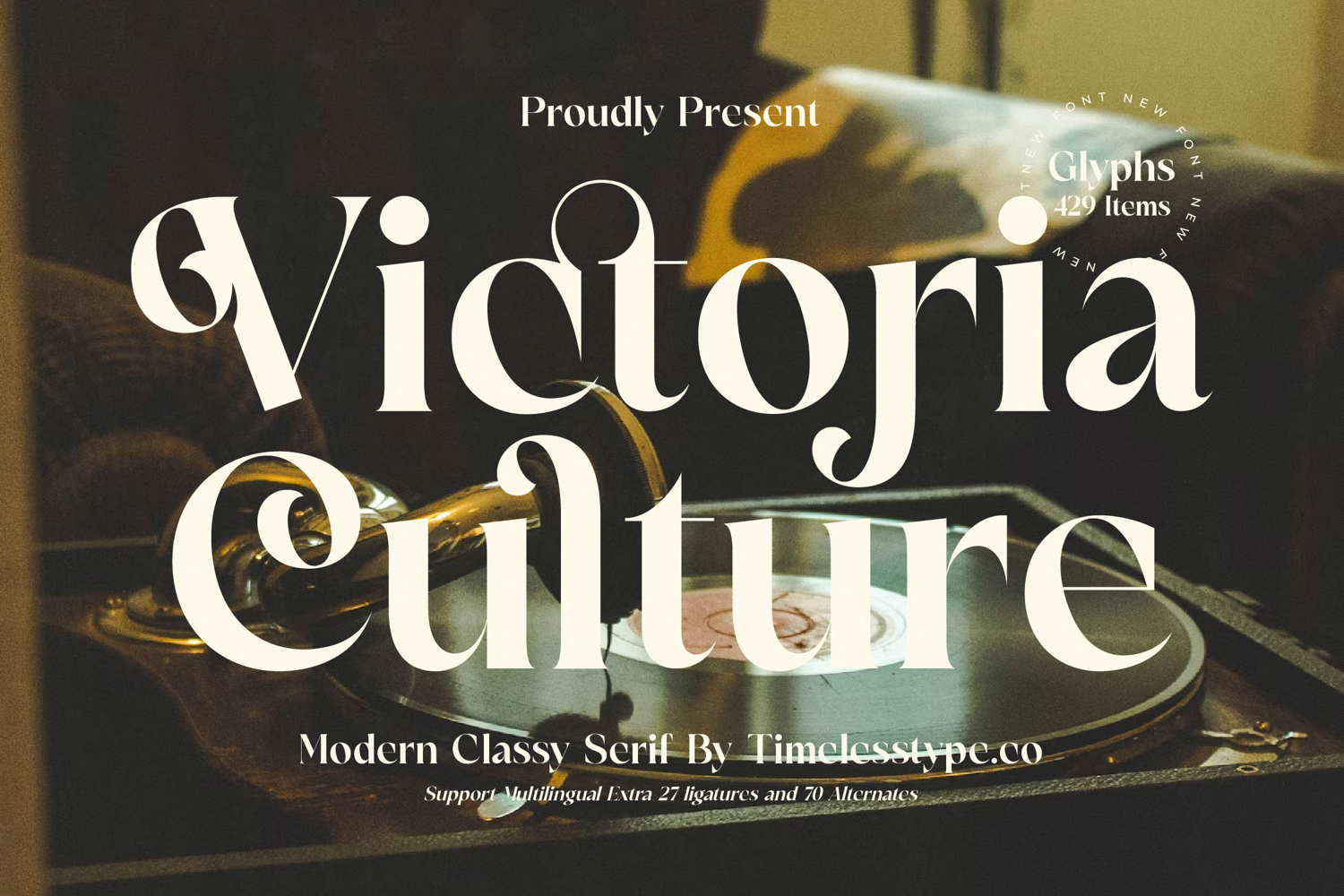
Victoria Culture - Modern Classy Serif
Discover the epitome of refined typography with Font Victoria Culture - Modern Classy Serif Serif Display. This exquisite serif display font masterfully blends timeless elegance with modern sophistication, delivering a captivating aesthetic that commands attention. Its distinctive high-contrast letterforms and delicate serifs create an inviting yet authoritative visual presence, perfect for conveying prestige and artistry in any design project.
Unleash unparalleled creative possibilities with Font Victoria Culture - Modern Classy Serif Serif Display’s rich character set. Crafted with meticulous attention to detail, this font boasts elegant curves and sharp terminals, enhanced by an impressive array of expressive ligatures and stylistic alternates. These thoughtful additions allow designers to customize their typography, ensuring every headline and logotype achieves a truly unique and polished finish with unparalleled creative freedom.
Broaden your design horizon with exceptional global compatibility. With its extensive multilingual support, Font Victoria Culture - Modern Classy Serif Serif Display adapts seamlessly across global markets, making it incredibly versatile for international projects. This robust functionality ensures your message resonates clearly and elegantly, transcending linguistic boundaries without compromising on its inherent class and sophistication.
Elevate your brand with a font designed for impact and distinction. Font Victoria Culture - Modern Classy Serif Serif Display is the ideal choice for luxury branding, editorial design, high-end packaging, and fashion magazines. It excels in creating memorable headlines, sophisticated invitations, and any application demanding an unforgettable visual presence that speaks volumes about quality and style.